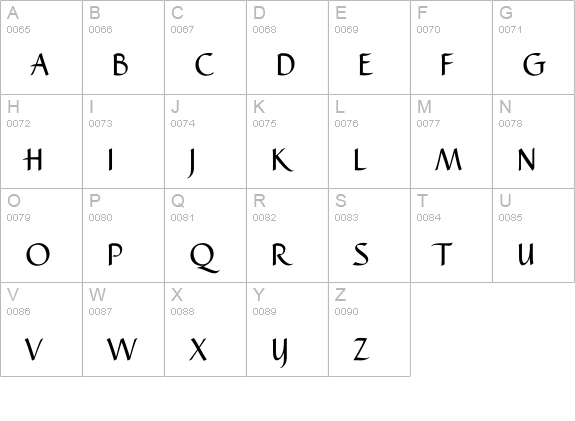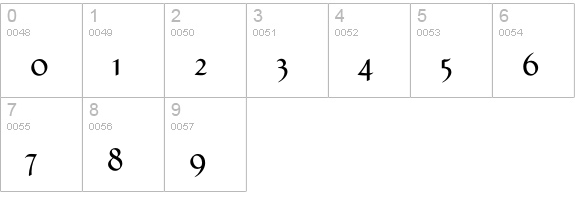
Caterina Font Details
Caterina font is a stunning display typeface that exudes elegance and charm. With its intricate serifs and graceful curves, this font is perfect for adding a touch of sophistication to any design project. Whether you're creating invitations, logos, or editorial layouts, Caterina font will elevate your work to the next level. What makes Caterina font even more appealing is that it is completely free to download. You can get your hands on this exquisite typeface at FontsMarket.com and start using it in your projects right away. Don't miss out on the opportunity to add this beautiful font to your collection today!